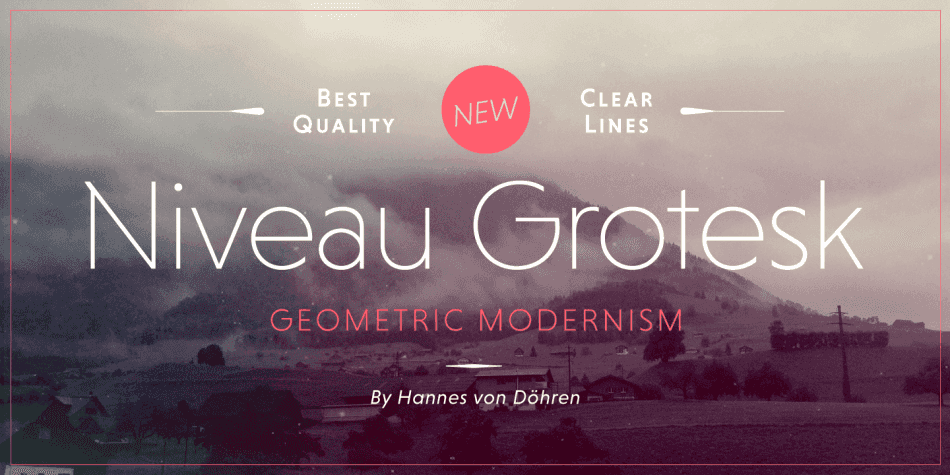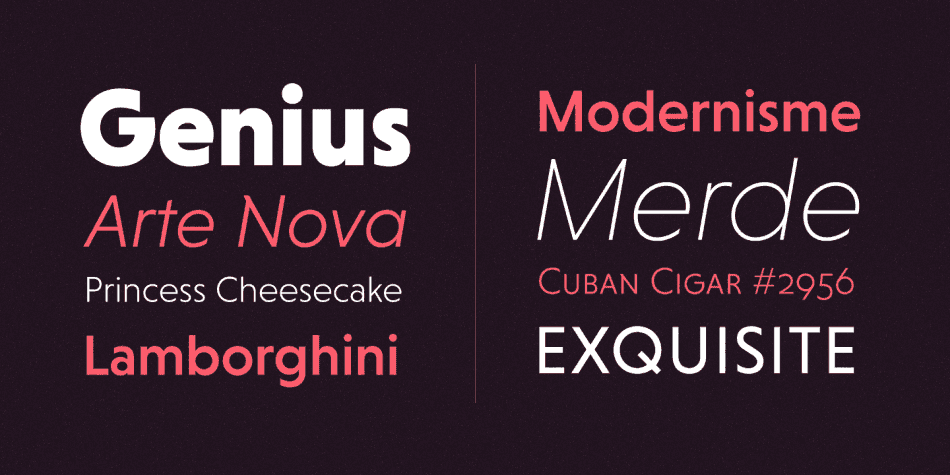
Niveau Grotesk, Hannes von Dohren’s response to Niveau Sans, is a type family comprised of six weights with small caps and italics to match. Created in 2013, its inspiration comes from classic nineteenth-century faces as well as fonts inspired by geometric forms. Because of its straight structure, Niveau Grotesk can have a “punch” at larger sizes but is equally comfortable for smaller text or longer texts when printed or displayed digitally.